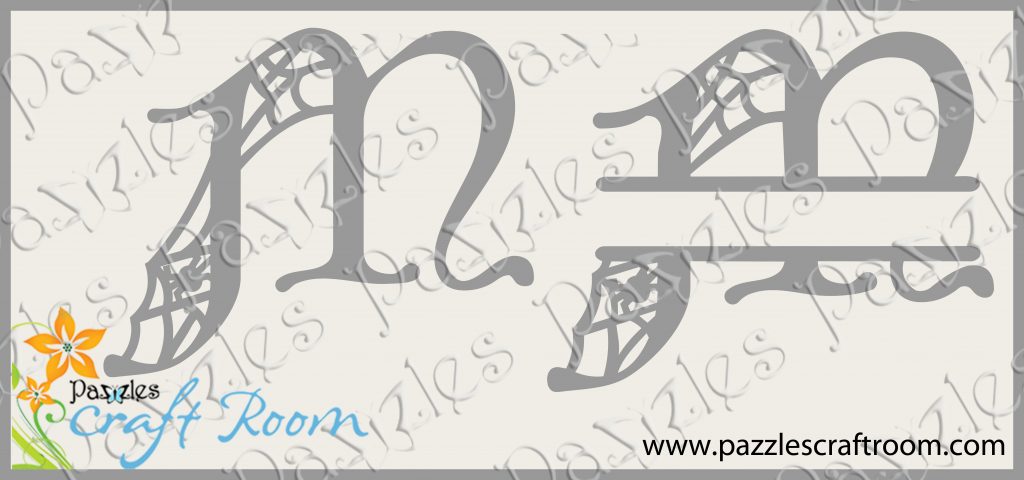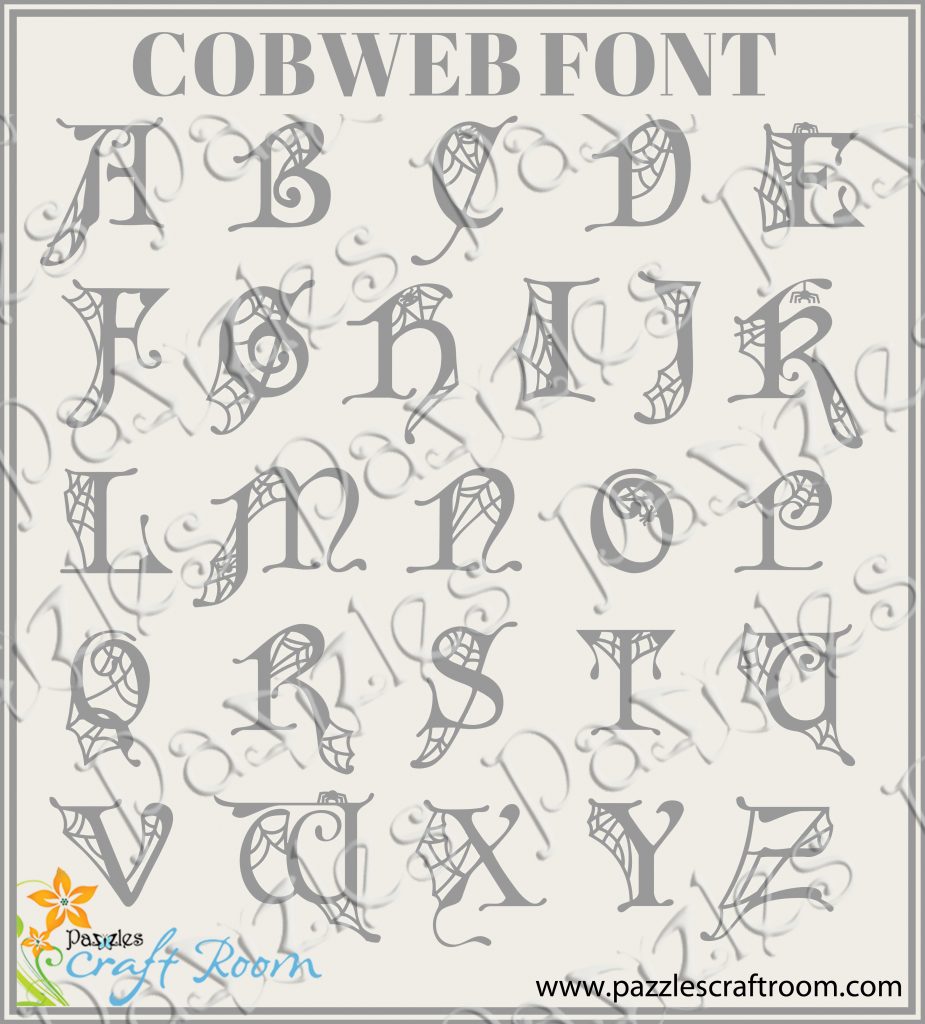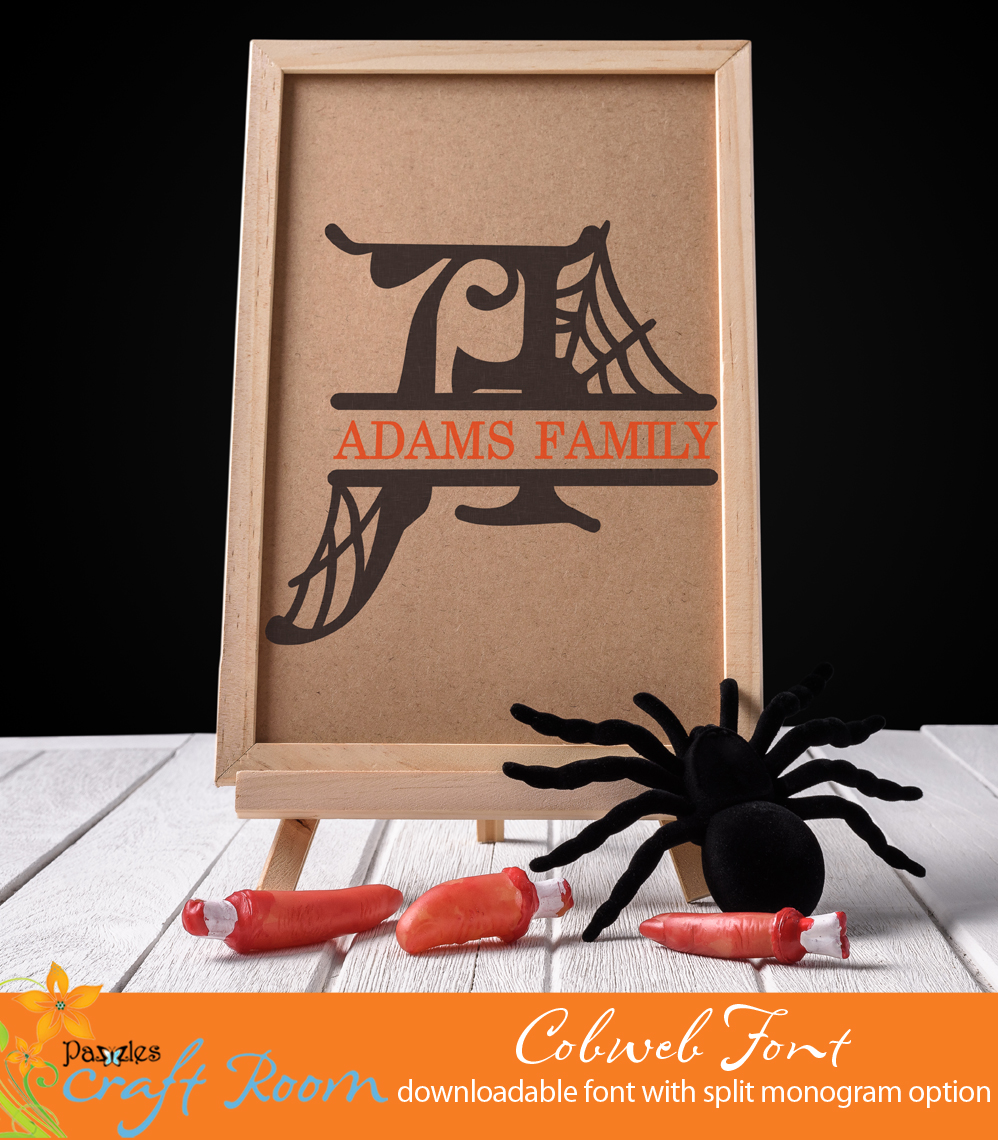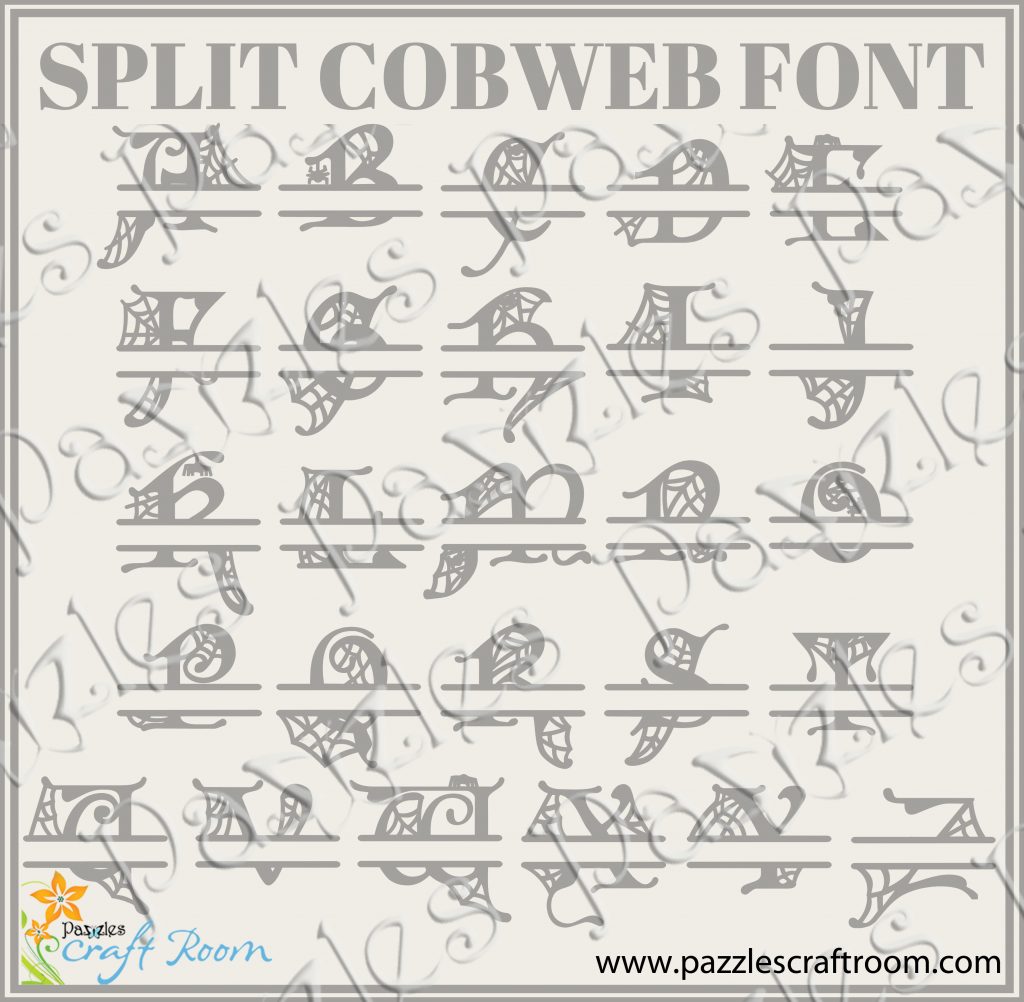
I am so excited to share it with you today! I painstakingly designed each custom letter and carefully designed them to cut beautiful. Believe me, I have spent a LOT of time on this font to make it perfect!!
Not only is each letter a unique design but there is also a split monogram version of each! You are getting TWO fonts for the price of one!
One thing that is so wonderful about having the InVue software is you can use any font you want, but that doesn’t mean you can always FIND exactly what you want! I wanted a great Halloween font that had lots of beautiful details and just the right amount of elegant and creepy. There are lots of Halloween fonts out there, but nothing with this level of intricate details that was still cut-friendly.
Use these to create awesome Halloween signs or use a single letter to adorn a special card. This font is also excellent for vinyl!
Of course these are all ready to cut but you can also just print them too if you need something lickety-split! Have fun with this cobweb font set!
The cobweb Font and Monogram are excellent for Halloween